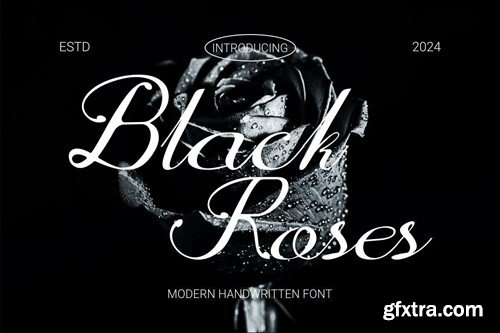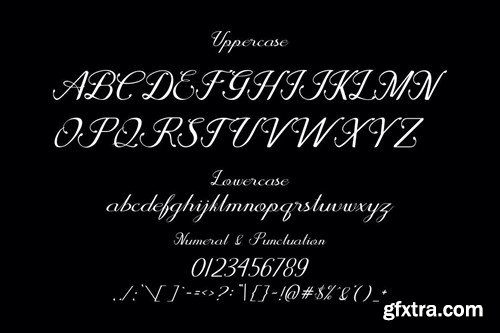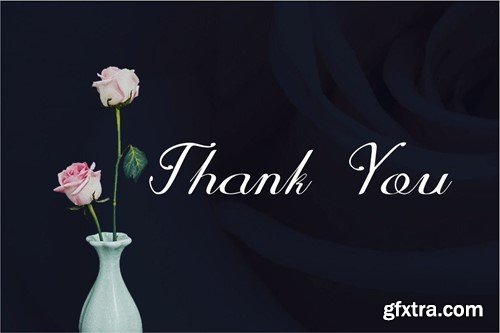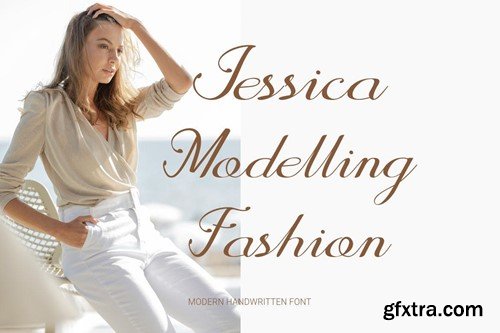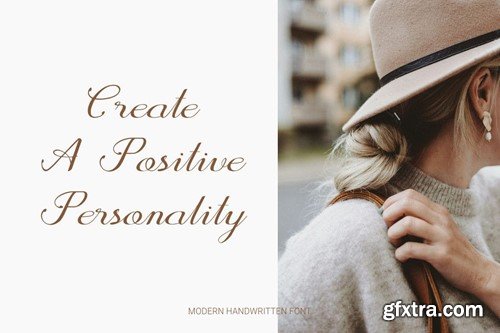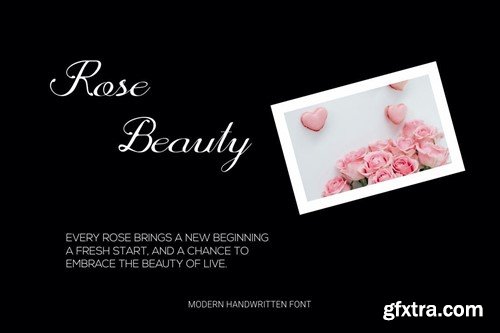
黑玫瑰 - 一种现代手写字体 K5MQCQR
BlackRoses - A Modern Script Font
Proudly presenting our new product BlackRoses - A Modern Script Font is a modern and authentic font. Perfect for professional and product branding needs, this font is suitable for any branding project such as quotes, logos, blog headers, posters, ribbons, letters, invitations, stationery, etc... Designed to be versatile and flexible that can be used on a variety of projects and media. extraordinary in a variety of contexts. Available WE INCLUDE THE FONT FORMAT IN THE DOWNLOAD FILE Of course Otf Ttf Uppercase If you have any questions, queries or concerns please do not hesitate to contact us directly. Appearance and cover image Not included in the download file, for presentation purposes only